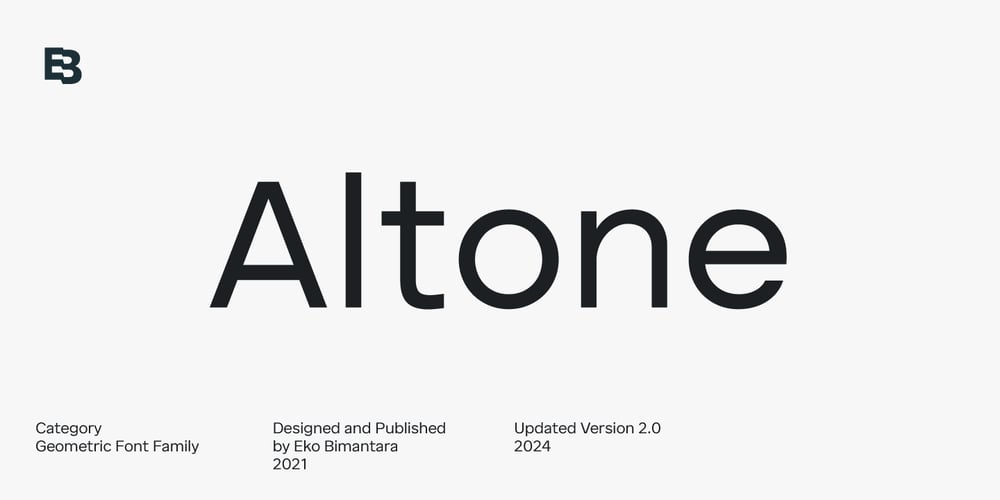
Altone Font Family was designed by Eko Bimantara and published by Eko Bimantara. Altone contains 20 styles and family package options. Updated version: 2.0Altone was created in a pursue of regularity and conventional geometric sans serif typeface which tend to be easy to receive by it’s reader, broad usage possibility, shown a simple, bold and strong personality.The letterforms are more likely associated with Grotesk rather than the original classical Bauhaus style, formed in moderate and proportional width, flat apex, closed aperture with straight cuts stroke ends.Consist of 9 weight from Thin to Heavy with each matching Obliques. Contain several OpenType features: Stylistic Alternates, Figures Variation (fraction, tabular lining, numerator, denominator), and also covered broad latin languages. Provided also variable fonts in two styles; Upright and Oblique